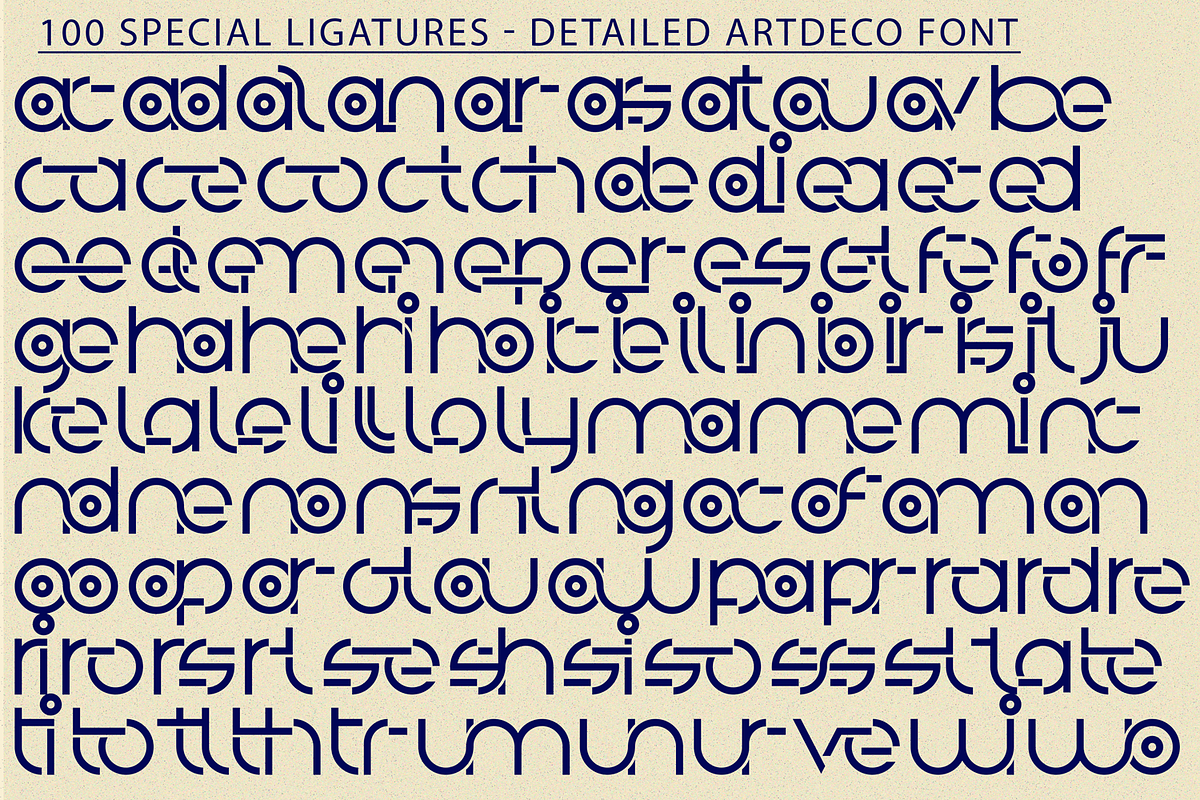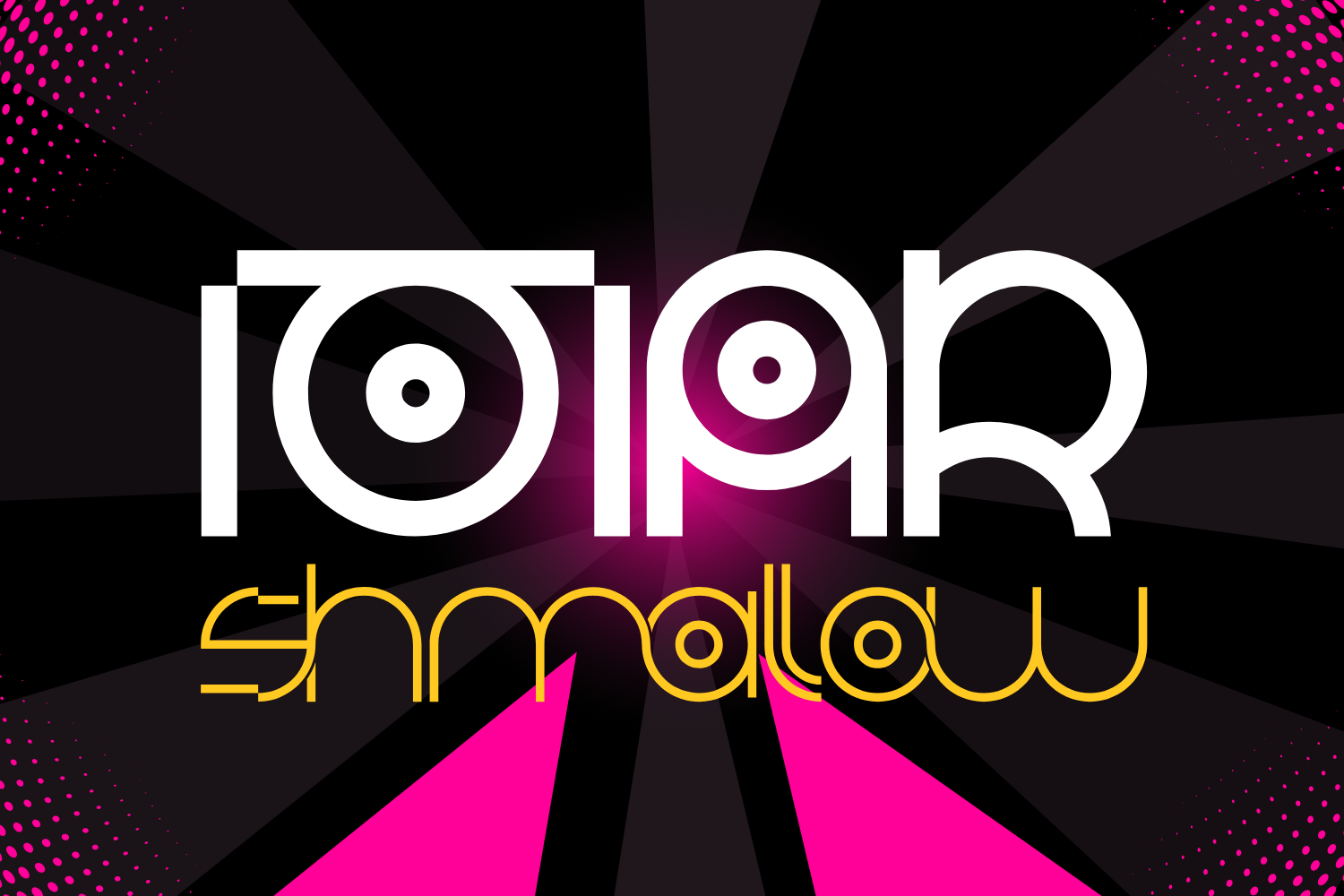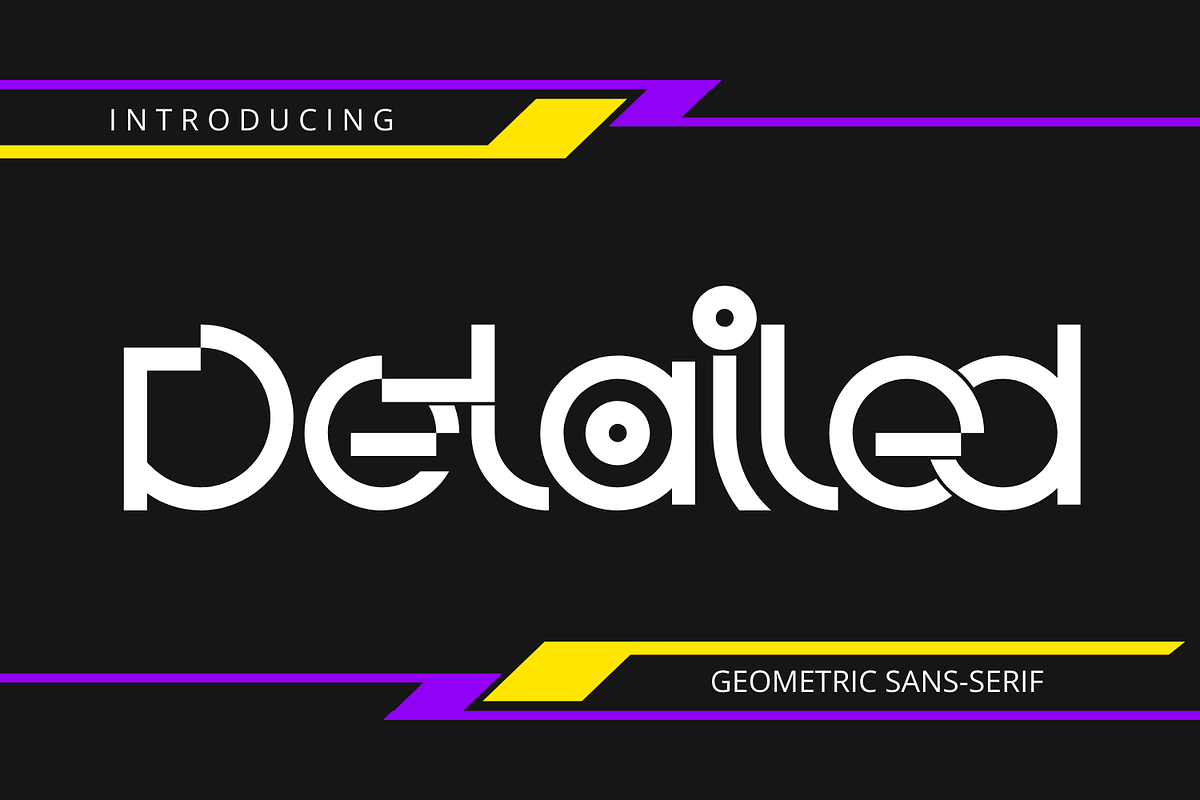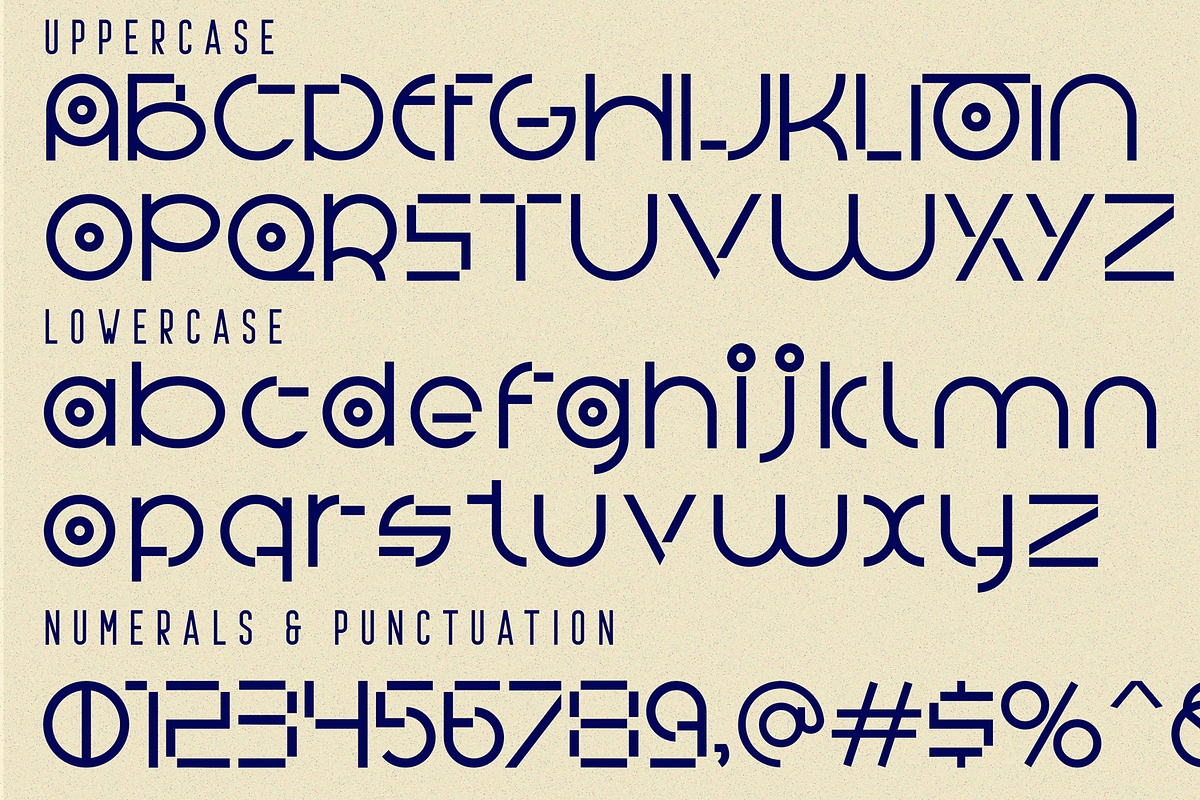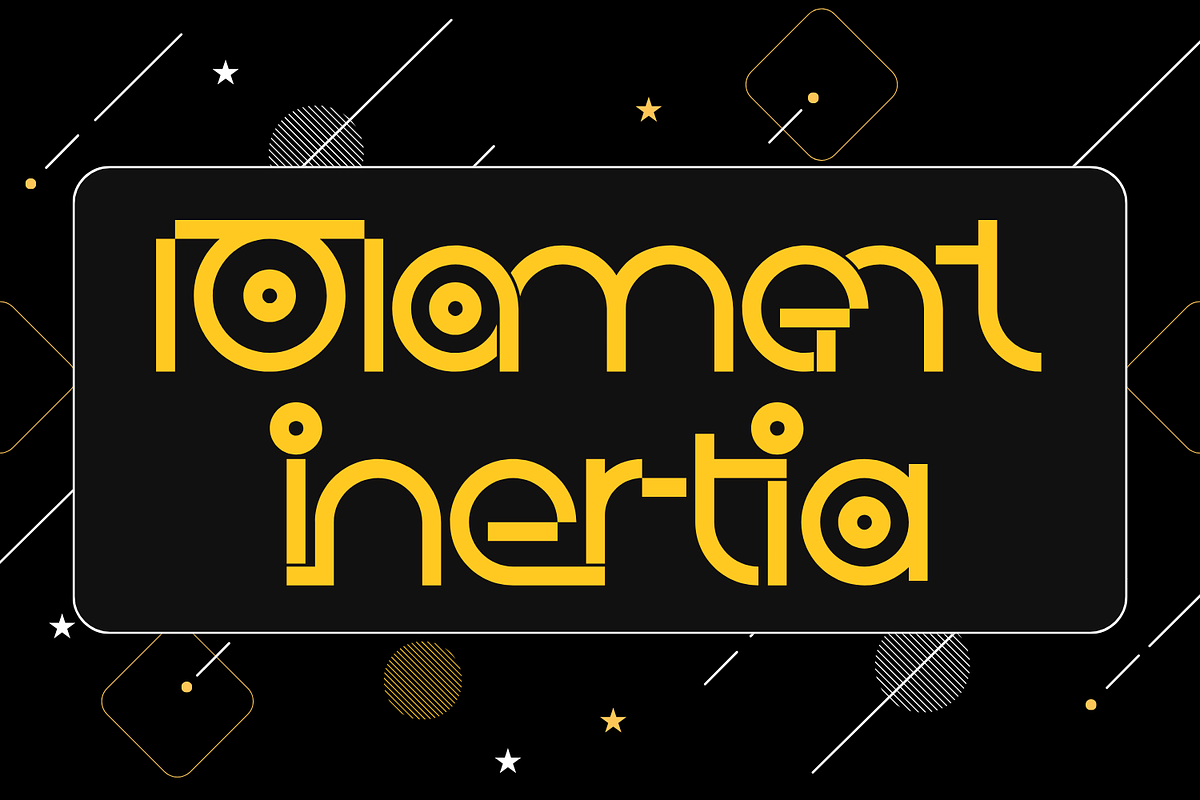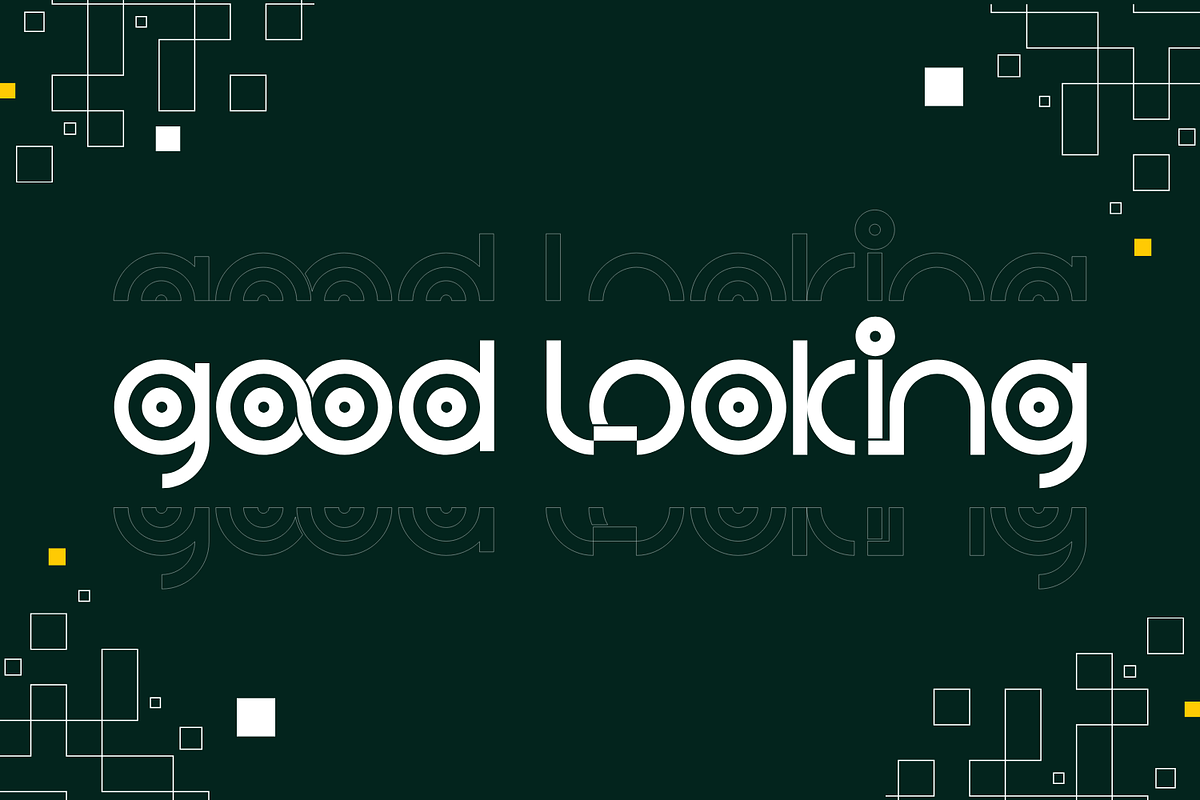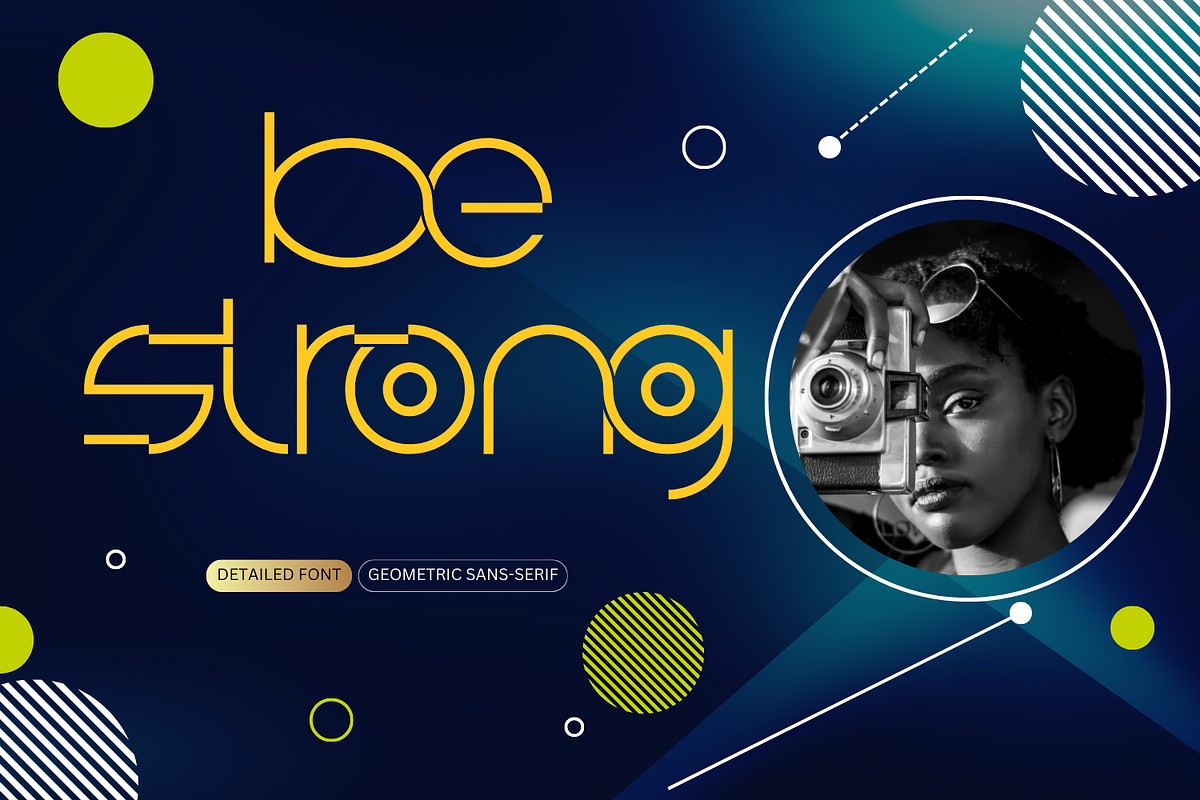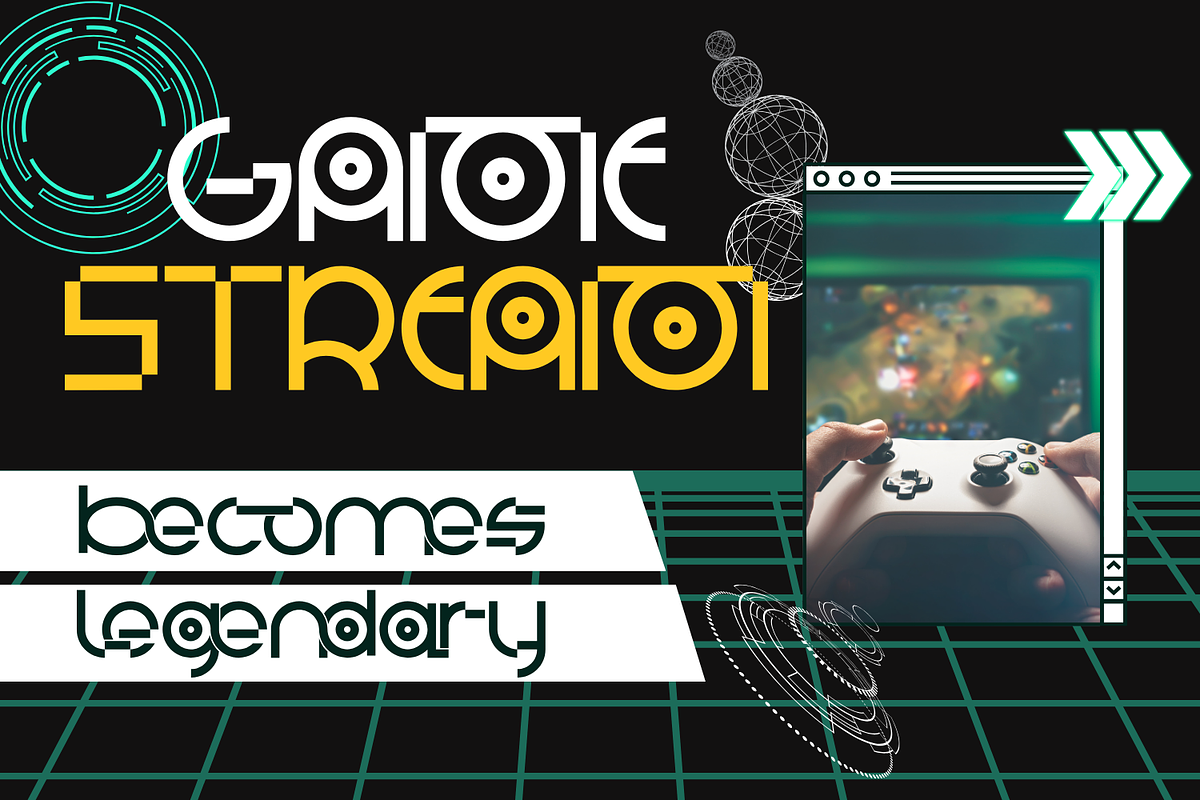
Detailed Artdeco Font
Detailed Artdeco Font is a stunning typeface that belongs to the geometric sans-serif category. It's a distinctive sans serif font. It features a unique style with variations in uppercase and lowercase letters, adding a touch of originality to your text. Ideal for branding, headlines, and digital content, this font seamlessly combines creativity and functionality, offering a modern yet elegant typographic solution.
Detailed Artdeco was built with OpenType features and includes 100 ligatures, alternate, numbers, punctuation, and it also supports other languages.
ac ad al an ar as at au av be ca ce ch co ct de di ea ec ed ee el em en ep er es et fe fo fr ge ha he hi ho ie ic il in io ir is it ju ke la le li ll lo ly ma me mi nc nd ne ng no nt ns oc of om on oo op or ot ou ow pa pr ra rd re ri ro rs rt se sh si so ss st ta te th ti to tr tt um un ur ve wi wo